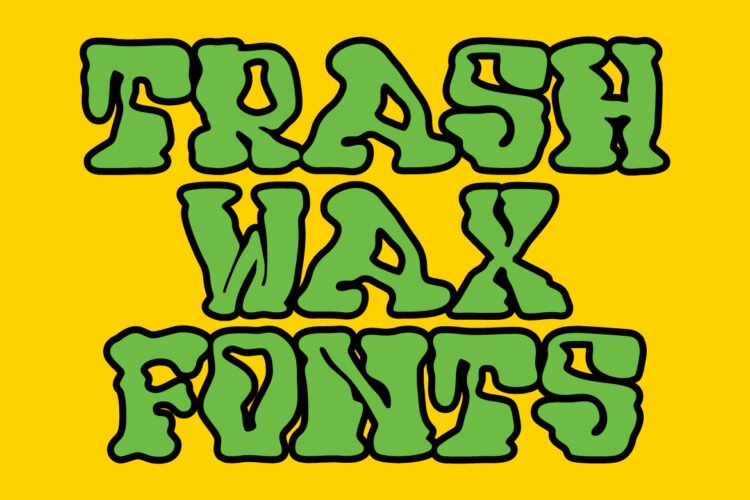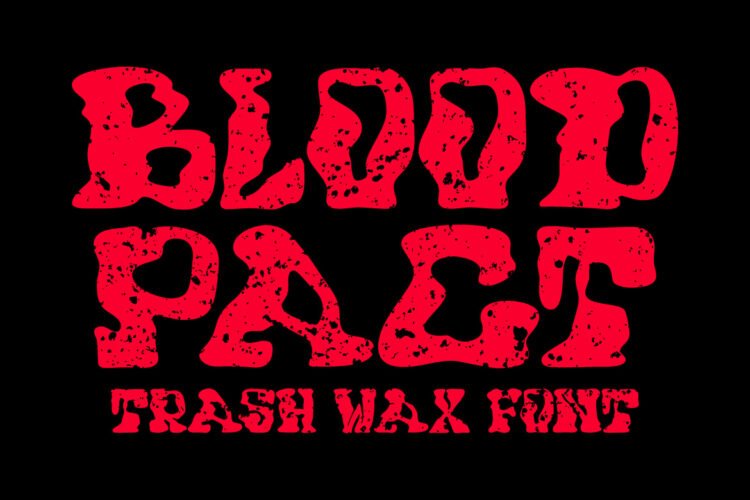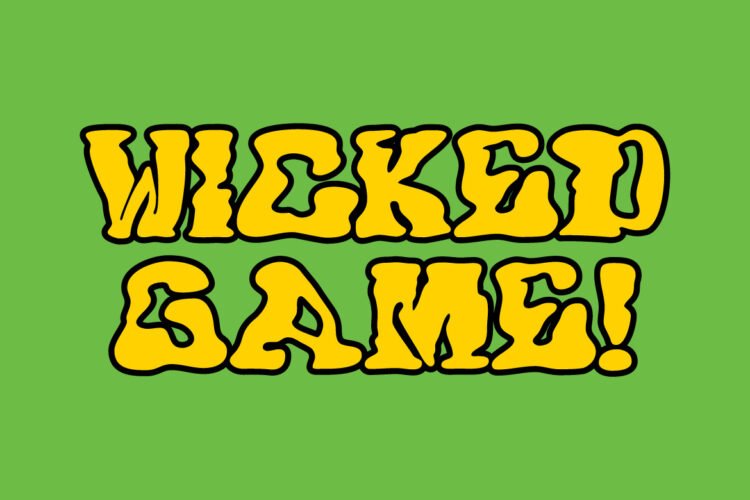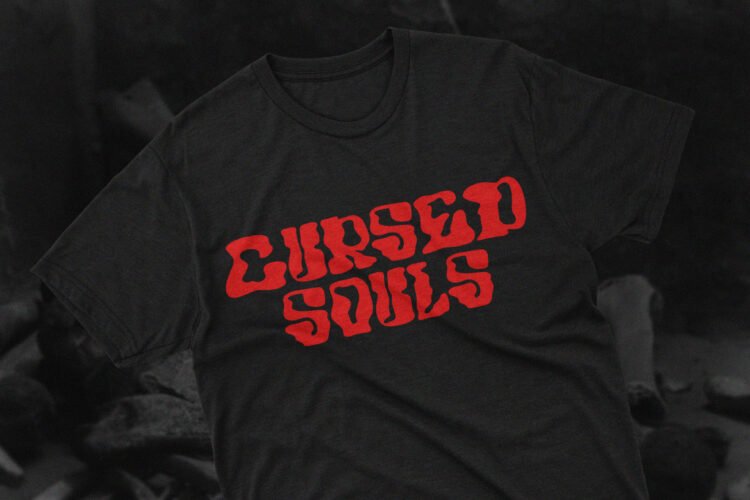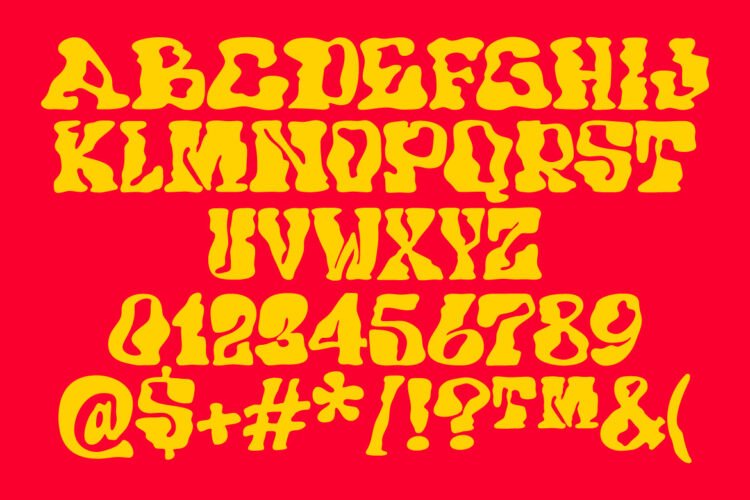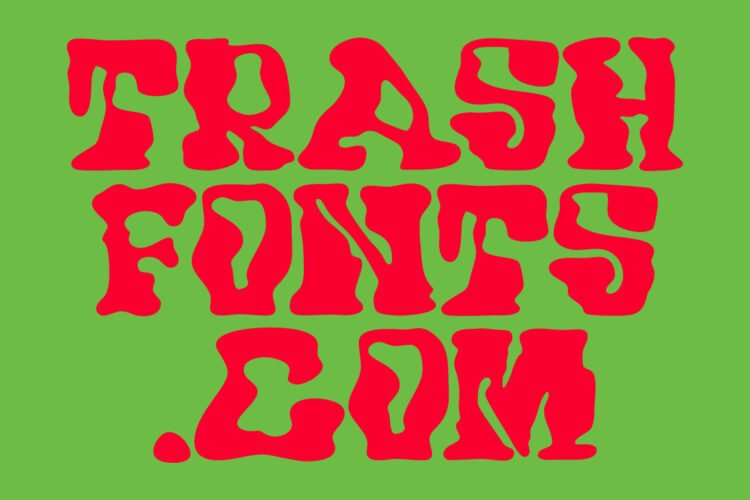
Introducing ‘Trash Wax’—a metal font that embraces simplicity with unrelenting ferocity. Its bold, no-nonsense design delivers a powerful visual punch, embodying the raw intensity of metal with straightforward boldness. ‘Trash Wax’ combines simplicity and aggressiveness, making it the perfect choice to leave a lasting mark. Unleash uncompromising power with the fierce simplicity of ‘Trash Wax.